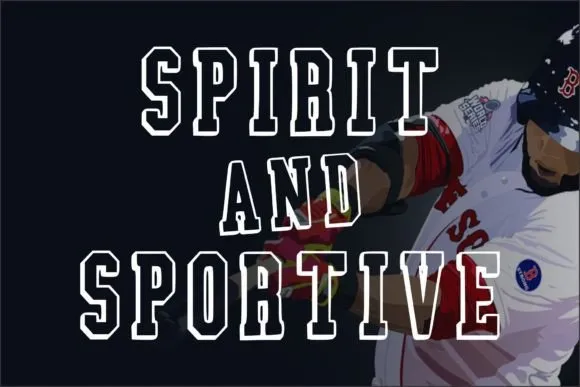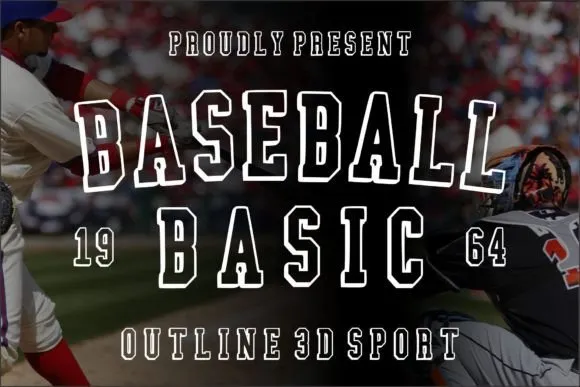
Baseball Basic Font is a diagram text style sports exemplary showcase text style, enlivened by school typography.
This strong and dynamic textual style catches the energy and fervor of sports. It includes areas of strength for an ordering look, with thick lines and sharp edges that convey power and physicality.